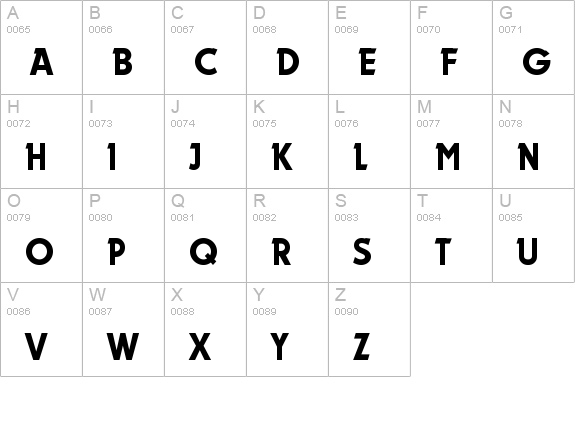
DynamoEF-Medium is a balanced, medium-weight variant in the DynamoEF typeface family \xE2\x80\x94 well suited to sub-headlines, navigation, and balanced editorial work.
DynamoEF-Medium font is a stylish and versatile typeface that exudes modernity and sophistication. Its sleek lines and balanced proportions make it perfect for a wide range of design projects, from branding to editorial layouts. The medium weight of this font strikes the perfect balance between elegance and readability, making it ideal for both display and body text. What sets DynamoEF-Medium font apart is that it is available for free download at FontsMarket.com. This means that you can easily access this high-quality font without any cost, making it a valuable addition to your design toolkit. Whether you're working on a website, poster, or logo, DynamoEF-Medium font will elevate your project with its clean and contemporary aesthetic. Download it today and take your designs to the next level.